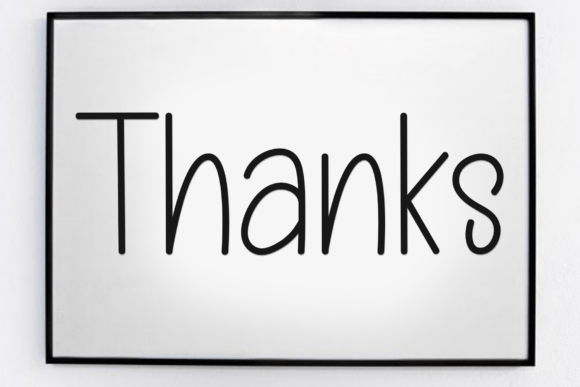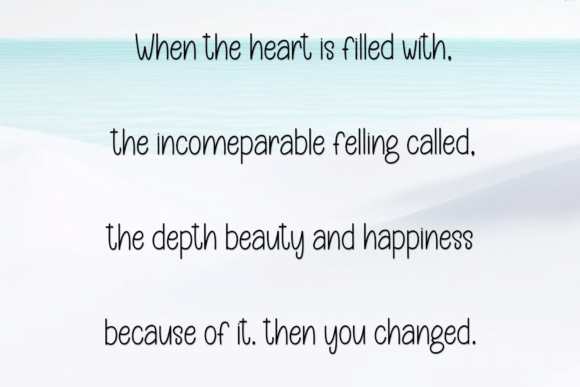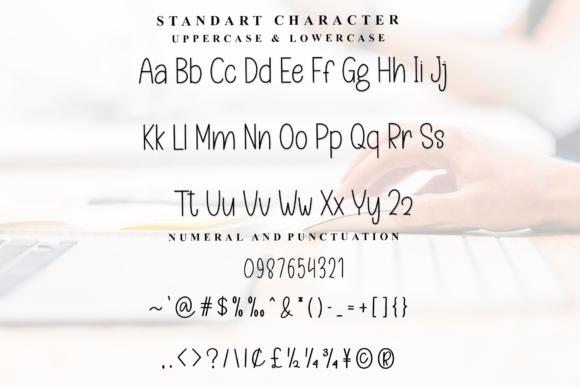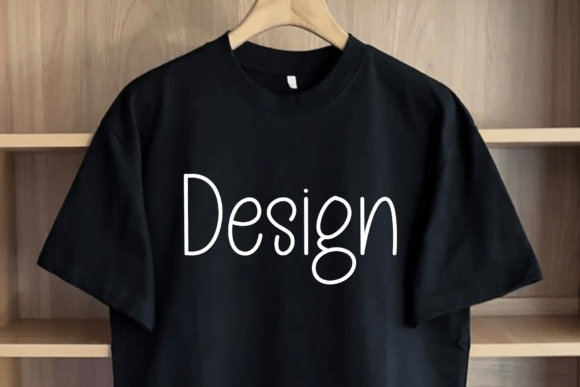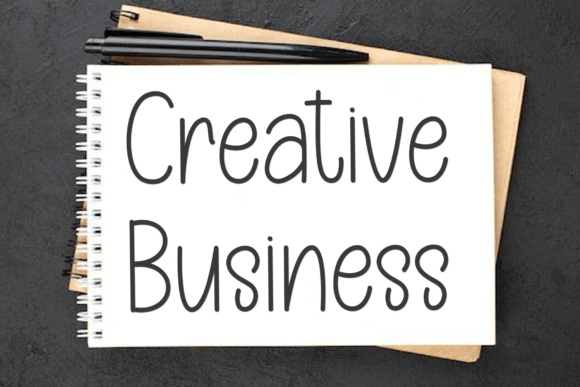
Elegant Background Font: Elevate Your Designs with a Touch of Sophistication
In the world of design, typography plays a crucial role in conveying messages, expressing emotions, and creating visual identities. Among the numerous font styles available, the Elegant Background Font stands out for its unique blend of softness and distinctiveness. This beautiful font is designed to add a touch of elegance and sophistication to various design projects, making it a versatile and valuable asset for designers and crafters alike.
What Makes Elegant Background Font Special?
The Elegant Background Font boasts distinctive strokes that give it a special character, setting it apart from more conventional fonts. Its soft and unique touch adds a layer of warmth and approachability, making it perfect for designs that require a personal and intimate feel. Whether you’re working on a logo, a branding project, or a creative craft, this font’s special character ensures that your work stands out and leaves a lasting impression.
One of the key benefits of the Elegant Background Font is its versatility. With a wide range of characters, this font can be used across various design projects, from digital graphics and advertisements to handmade crafts and stationery. Its adaptability makes it an excellent choice for designers who need a reliable font that can work well in different contexts. Moreover, its compatibility with various applications, including Windows and open-source platforms, ensures that you can use it seamlessly across different software and devices.
Whether you’re a professional designer or a crafting enthusiast, the Elegant Background Font is an excellent addition to your toolkit. For designers, it offers a fresh and elegant alternative to more traditional fonts, allowing you to create unique and captivating visual content. For crafters, it provides an opportunity to add a personal and artistic touch to handmade projects, such as greeting cards, invitations, and DIY decorations.
Enhance Your Designs with Elegance
The Elegant Background Font is designed to enhance your designs and make them appealing to a wide range of audiences. Its natural and soft style resonates with people across different artistic and creative fields, making it an excellent choice for projects that require a touch of sophistication and elegance. By incorporating this font into your designs, you can:
- Create visually stunning graphics and advertisements that capture attention and convey your message effectively.
- Develop a strong brand identity that exudes elegance and refinement.
- Add a personal touch to your crafts and handmade projects, making them more special and unique.
Why Choose Elegant Background Font?
With so many fonts available, why choose the Elegant Background Font? Here are a few compelling reasons:
- Unique and distinctive: This font’s soft and unique touch sets it apart from more conventional fonts, ensuring that your designs stand out.
- Versatile: With a wide range of characters and compatibility with various applications, this font can be used across different design projects and contexts.
- Elegant and sophisticated: The Elegant Background Font adds a touch of elegance and refinement to your designs, making them appealing to a wide range of audiences.
In conclusion, the Elegant Background Font is a beautiful and eye-catching font that offers a unique blend of softness and distinctiveness. Its versatility, elegance, and sophistication make it an excellent choice for designers and crafters looking to elevate their designs and add a personal touch to their projects. With its wide range of characters and compatibility with various applications, this font is sure to become a valuable asset in your design toolkit.